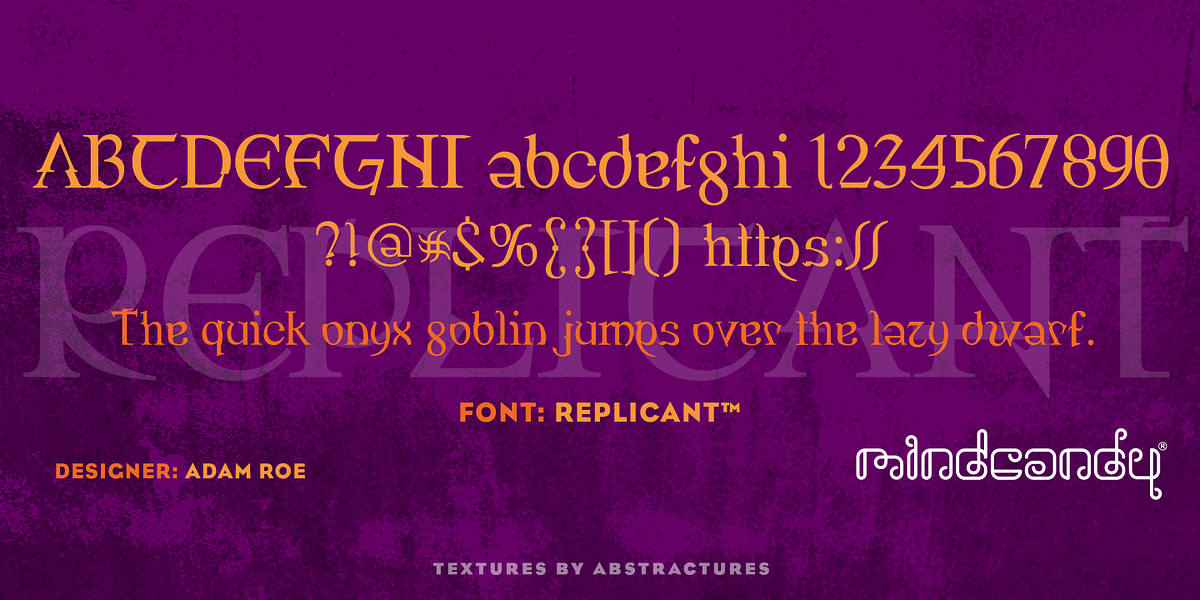
Replicant™
This novelty font consists of a variety of symbols and dingbats, making it ideal for adding a touch of whimsy to graphic design projects or illustrations.